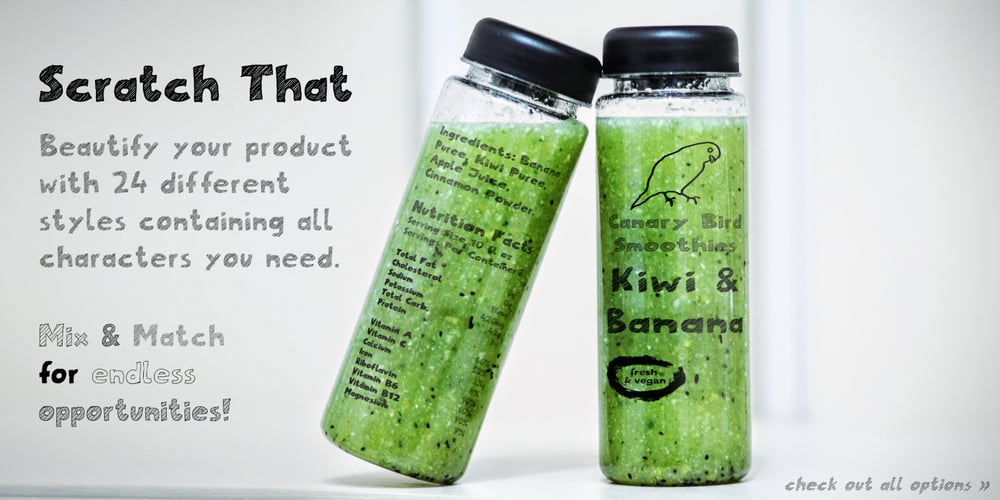
Scratch That Font Family was designed by Matthias Luh and published by Matthias Luh. Scratch That contains 24 styles and family package options. “Scratch That” is a decorative font available in 16 different styles. All subfamilies are consistent in width, position and spacing, so multiple fonts can be layered to create even more variety – have a look at our Family Pack offers! We designed “Scratch That” with layered design in mind and for both good legibility at smaller sizes and perfect look at large dimensions. This allows widespread use: for fashion, headlines, flyers, food, packaging, posters, souvenirs, web design, invitations and many more…